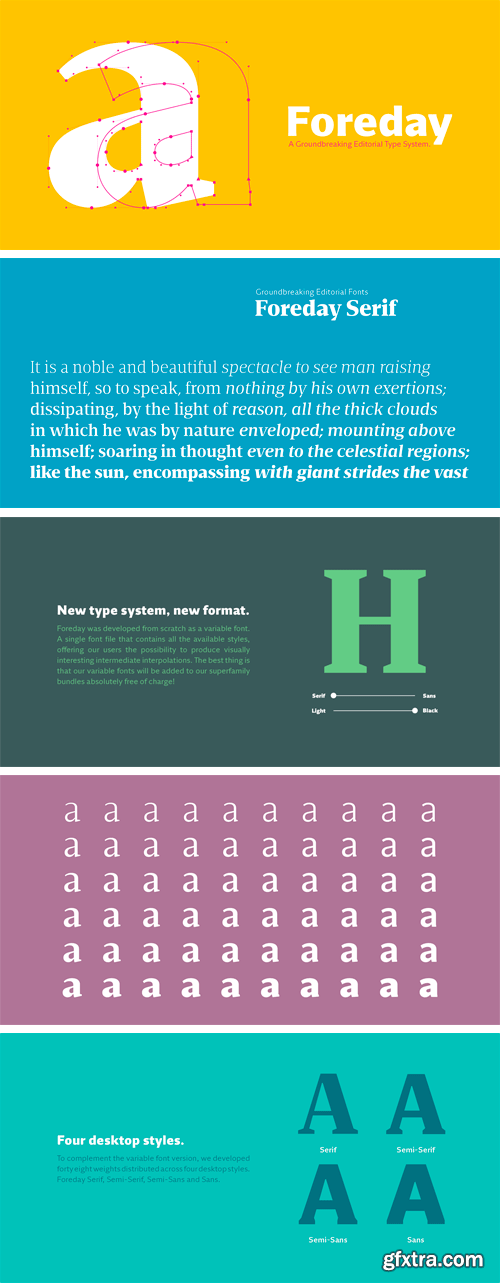
Foreday Serif Font Font Family
The end of the design space we used for centuries is just around the corner and, as a discipline, the survival of type design, will clearly depend on how we will face the upcoming problematics.
This typeface is our first attempt to respond to the problematics of the upcoming digital publications. While in print the serifs might contribute to the legibility of typefaces, making any publications easier to read, the fact is that in screen environments the sans serif can render better and come out cleaner and thus more legible. In order to preserve the overall identity of the publication we expanded the design space, from the usual thin to thick, to serif to sans serif while confirming the consistency of the in-between typographic shapes. This way we can have a uniform typographic support for both analog and digital publications or, if digital only, from extremely big to small, pocket size displays, while covering all the digital devices responsively.